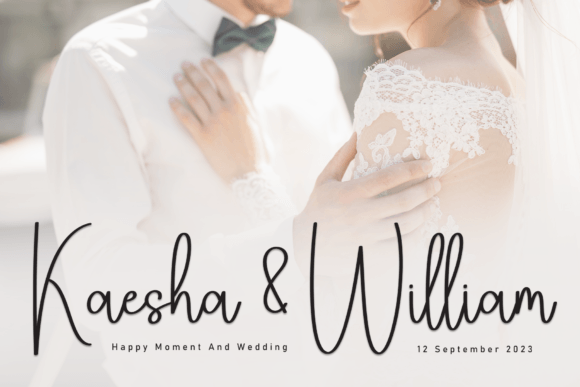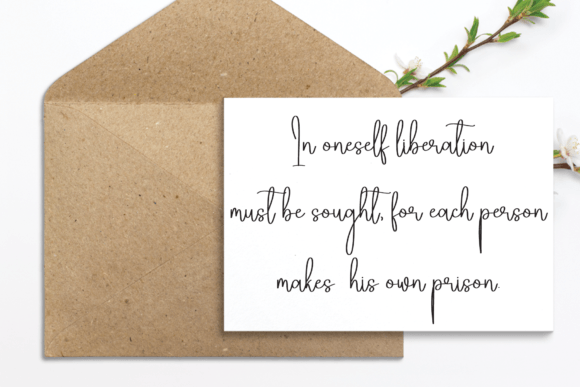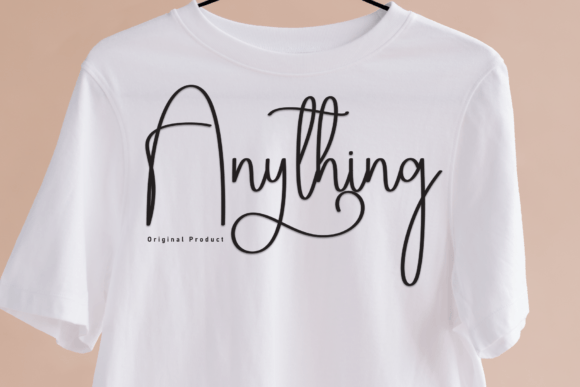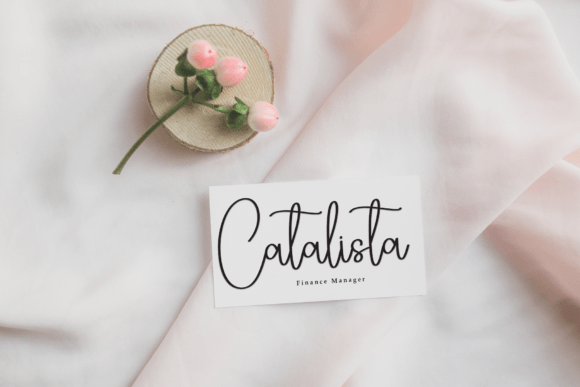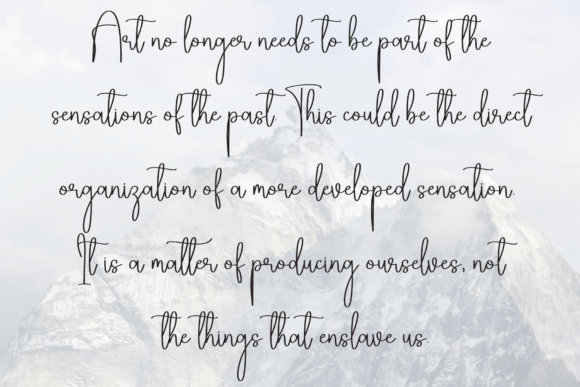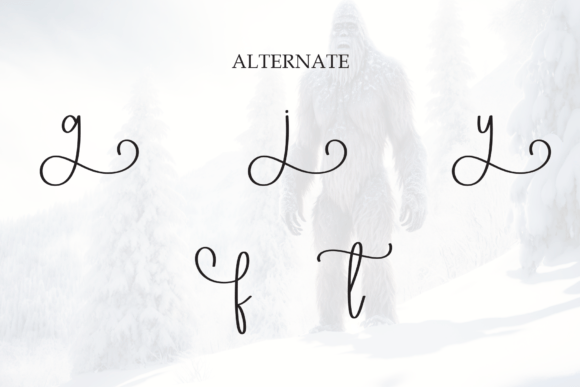
The Elusive Bigfoot Font: A Designer’s Dream Come True
I’ll never forget the time I was working on a project for a client who wanted a font that was both playful and elegant. I had been searching for what felt like hours, but nothing seemed quite right. That’s when I stumbled upon the Bigfoot Font. It was like a breath of fresh air – sweet, friendly, and perfectly imperfect. In this article, I’ll share my experience with Bigfoot, its unique features, and how to make the most of it in your designs.
An Honest Review of Bigfoot Font
What I Love About Bigfoot Font
- ✨ Unique and Natural Style: Bigfoot has a one-of-a-kind, handwritten look that adds a touch of personality to any design.
- ✅ Versatility: This font can be used for a wide range of projects, from kid-friendly crafts to more sophisticated branding materials.
- 💡 OpenType Features: Bigfoot supports OpenType features, including glyphs and stylistic alternates, giving you plenty of creative options.
While Bigfoot is an amazing font, it’s not without its quirks. For example:
- 🤔 Legibility at Small Sizes: Bigfoot can be a bit tricky to read at very small sizes, so it’s best used at larger sizes or for headlines.
- ⚠️ Limited Formality: Due to its playful nature, Bigfoot might not be the best fit for very formal or corporate designs.
The Story Behind Bigfoot Font
Bigfoot Font was designed with the intention of capturing the essence of natural, handwritten beauty. Its creator aimed to produce a font that felt both approachable and unique, perfect for designers looking to add a personal touch to their work. While the exact backstory might be fictional, the impact of Bigfoot on the design community is very real.
A: Absolutely! Bigfoot is a great choice for crafters and hobbyists looking to add a personal touch to their work.
A: Yes, Bigfoot supports OpenType features, including glyphs and stylistic alternates, giving you more creative control.
A: Bigfoot is generally easy to read, especially at larger sizes. However, it might be less legible at very small sizes.